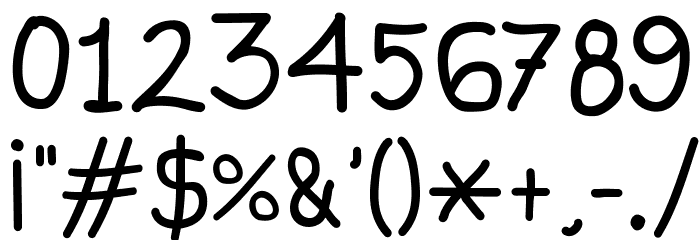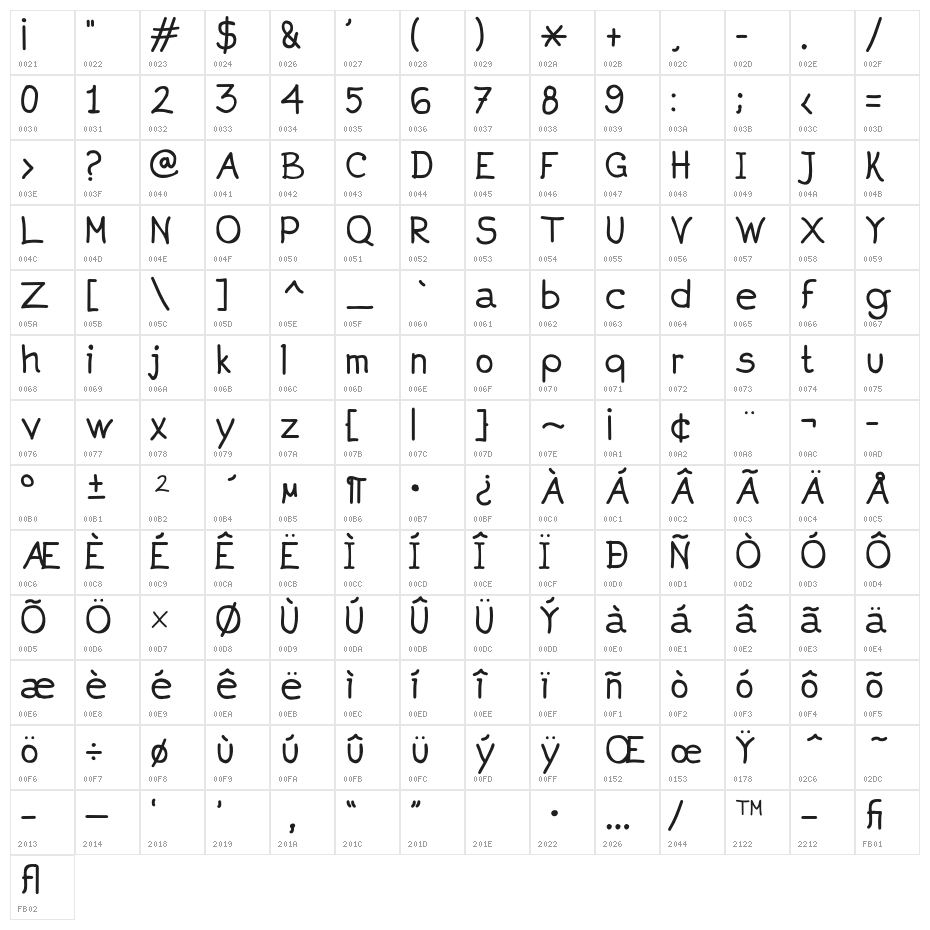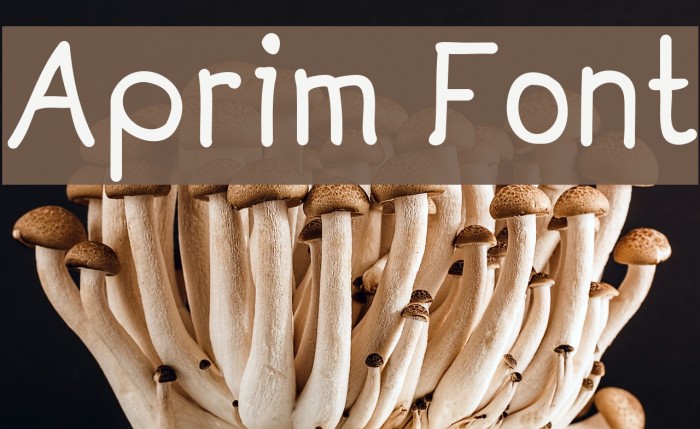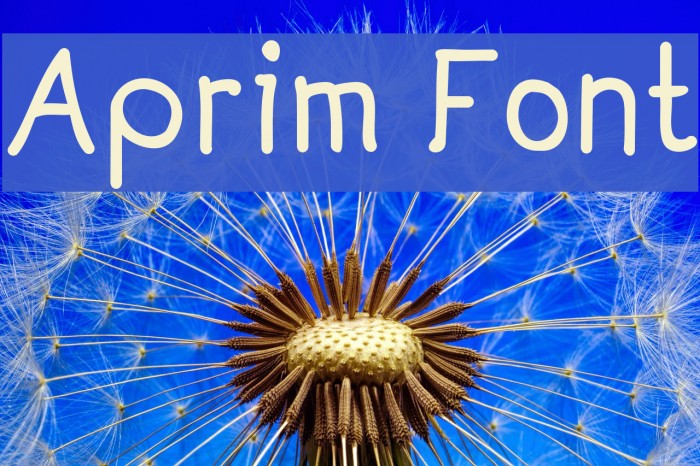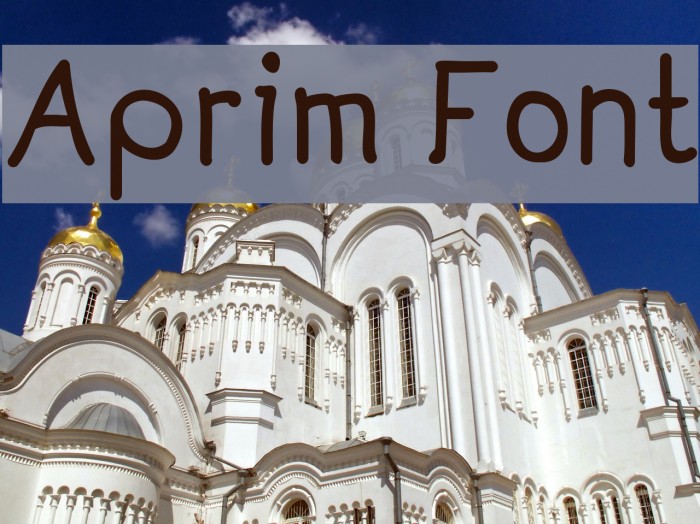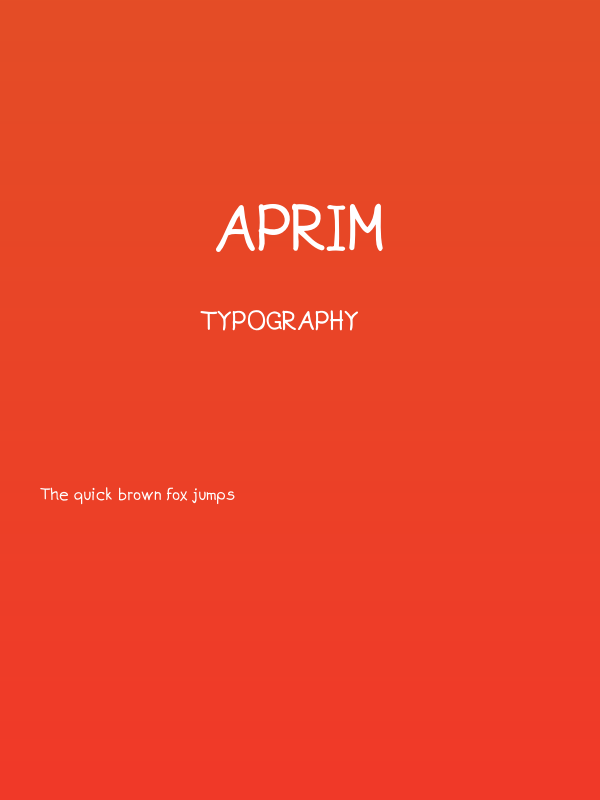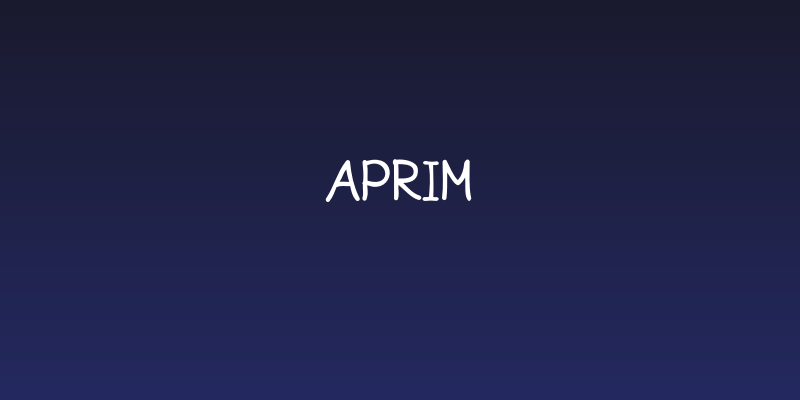
Aprim Font
Aprim Description
This font features a playful and casual handwritten style, characterized by its rounded edges and slightly irregular letterforms. The uppercase letters are bold and prominent, while the lowercase letters maintain a consistent flow, adding to the font's approachable and friendly appearance. The numerals are clear and easy to read, matching the overall informal aesthetic. Special characters are well-integrated, ensuring versatility across various applications. The font's design is suitable for projects that require a personal touch, such as greeting cards, invitations, and children's books.
Overall StyleCasual
Use CaseHeadlines, Informal text, Branding
Proposed ProjectsIdeal for greeting cards, invitations, children's books, and casual branding.